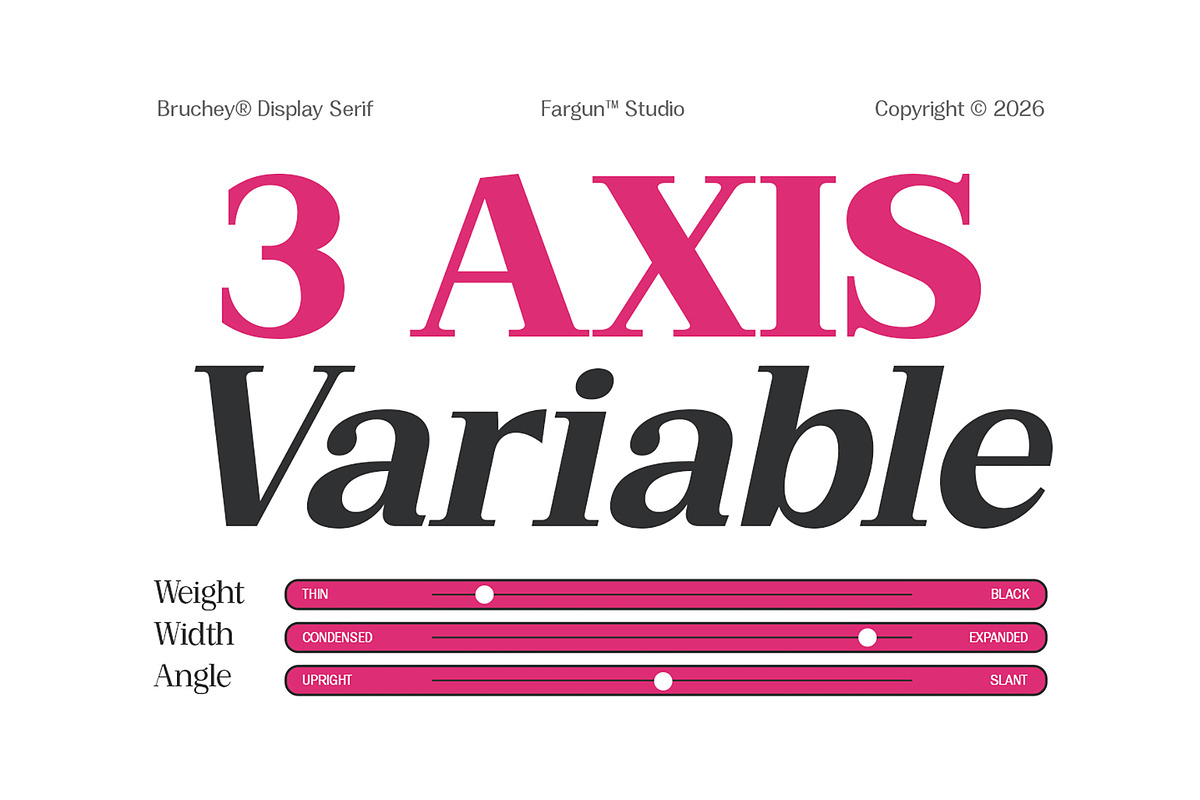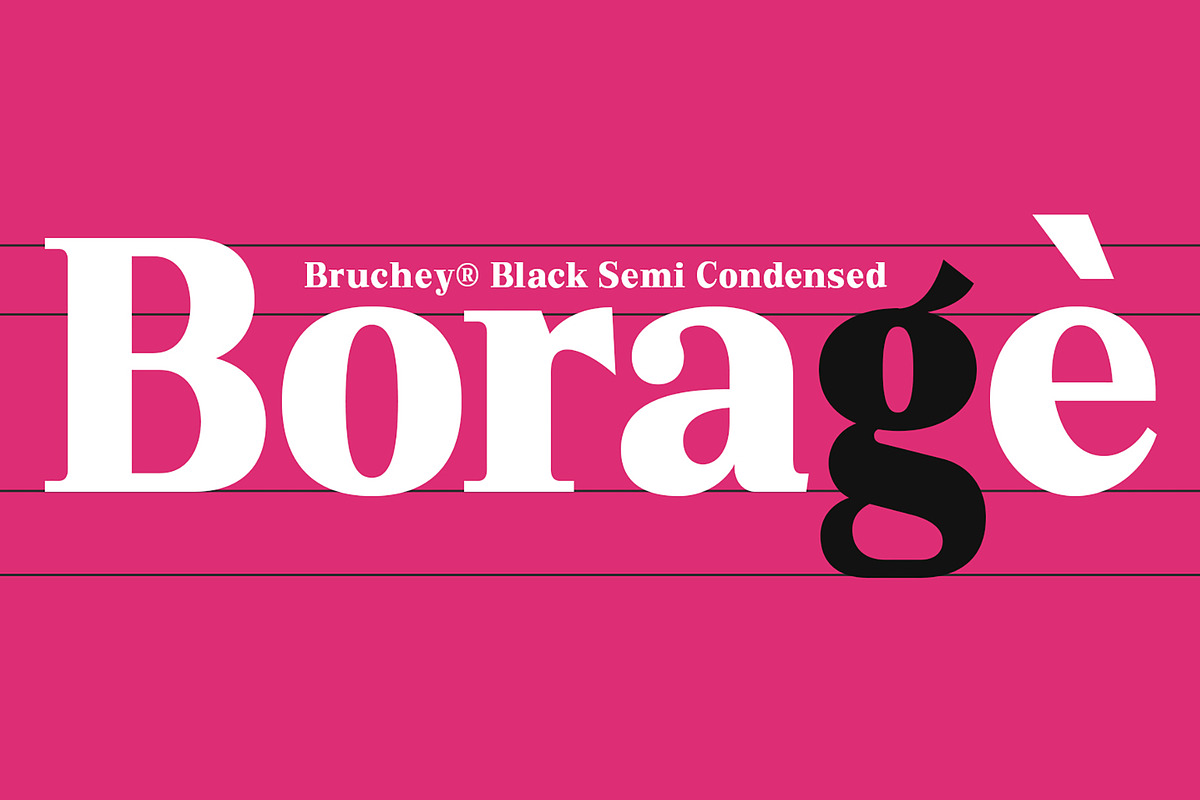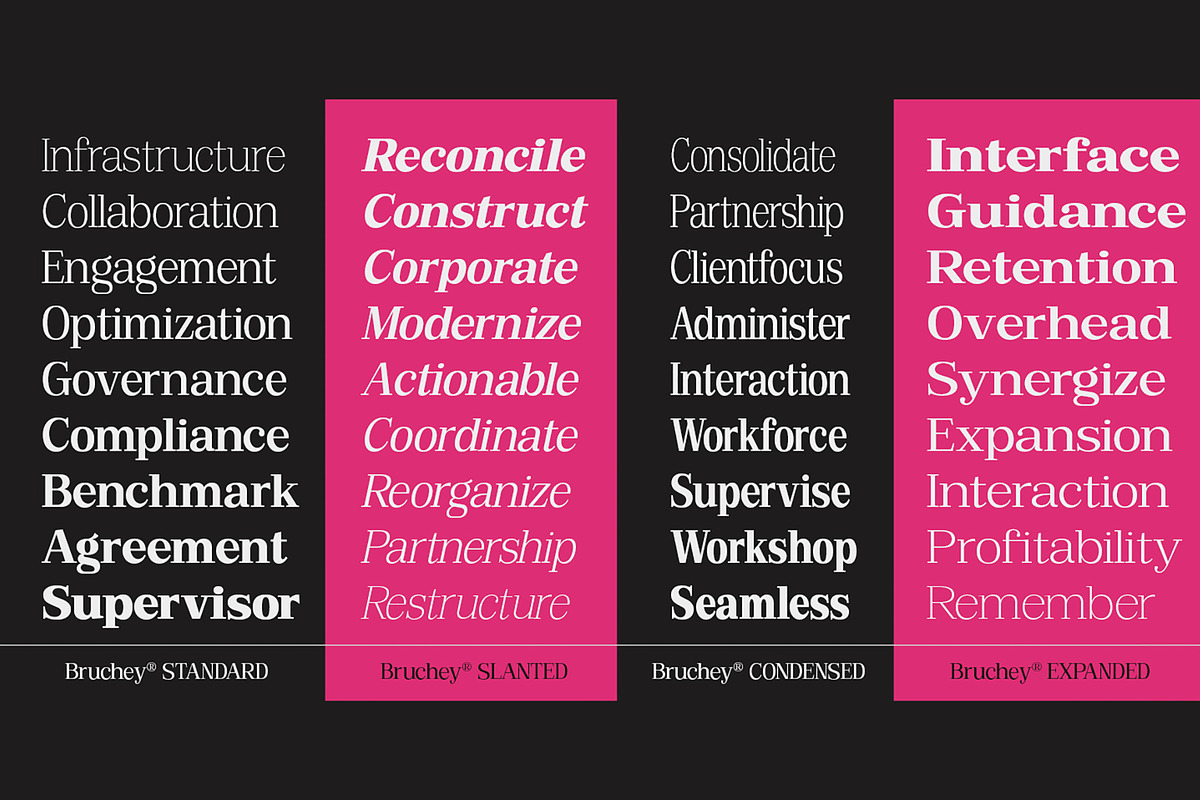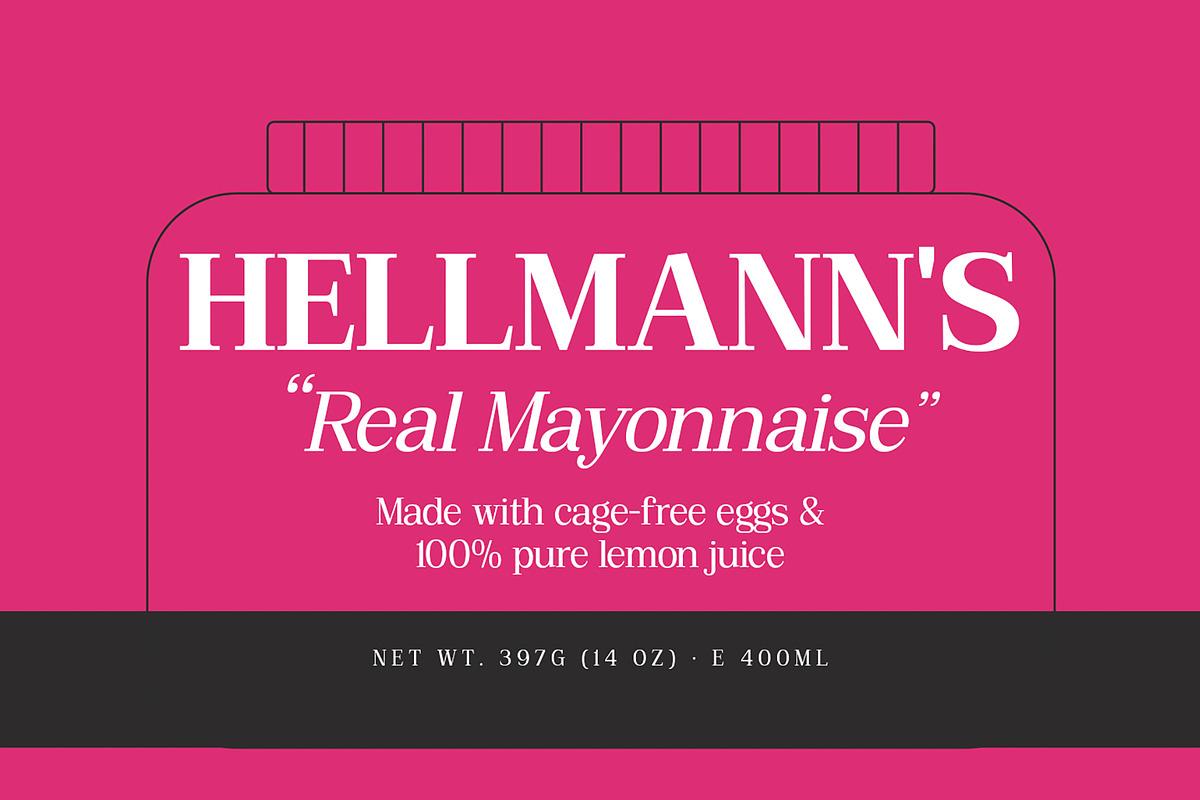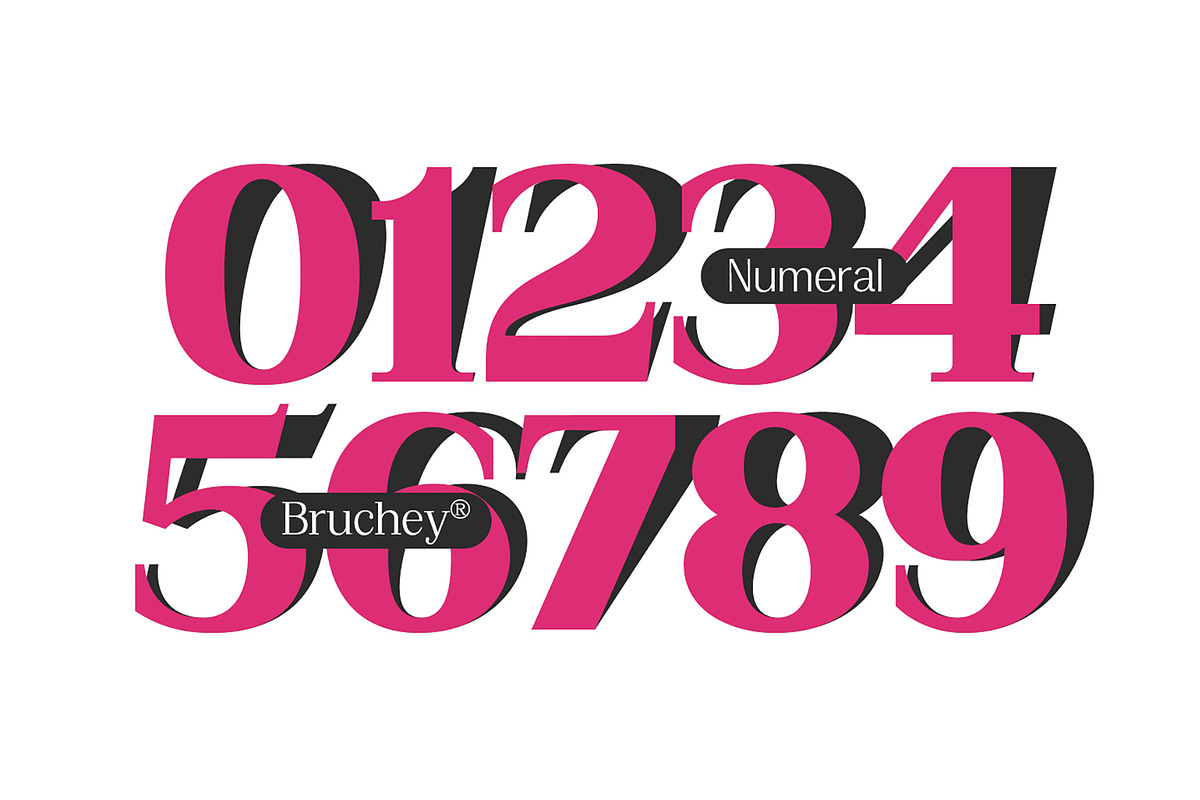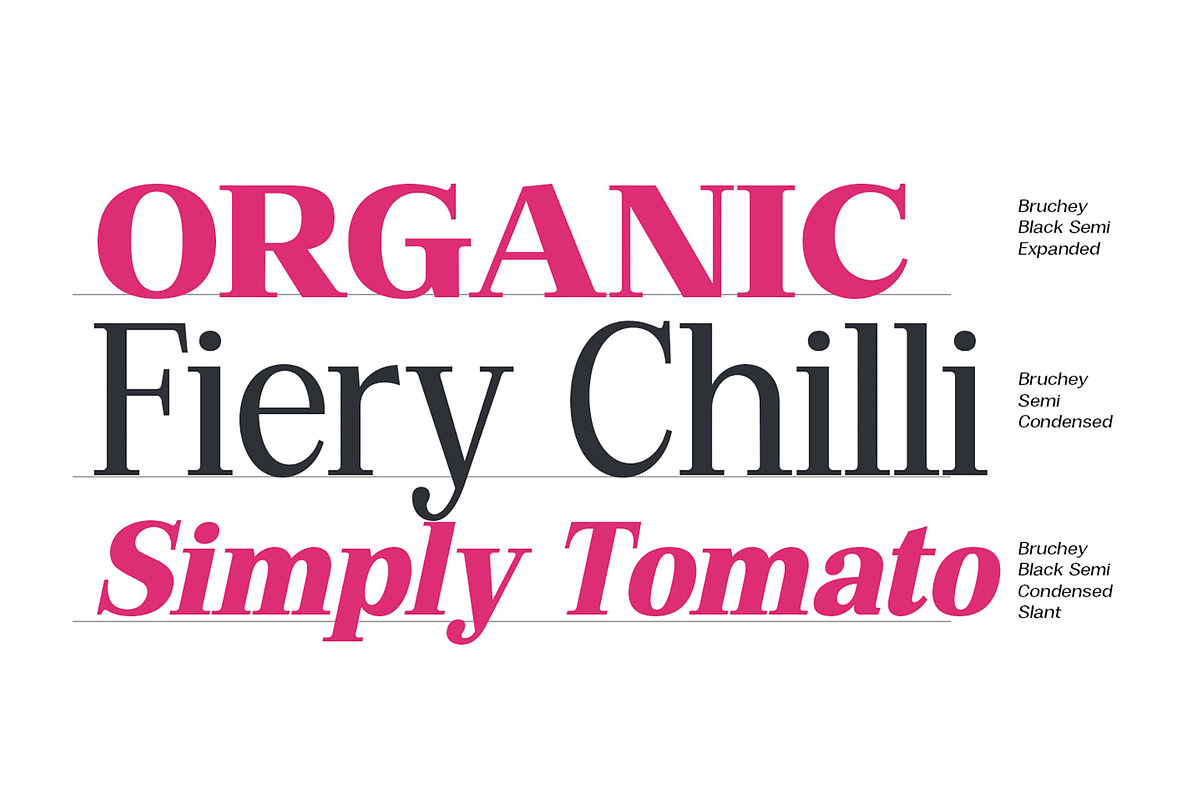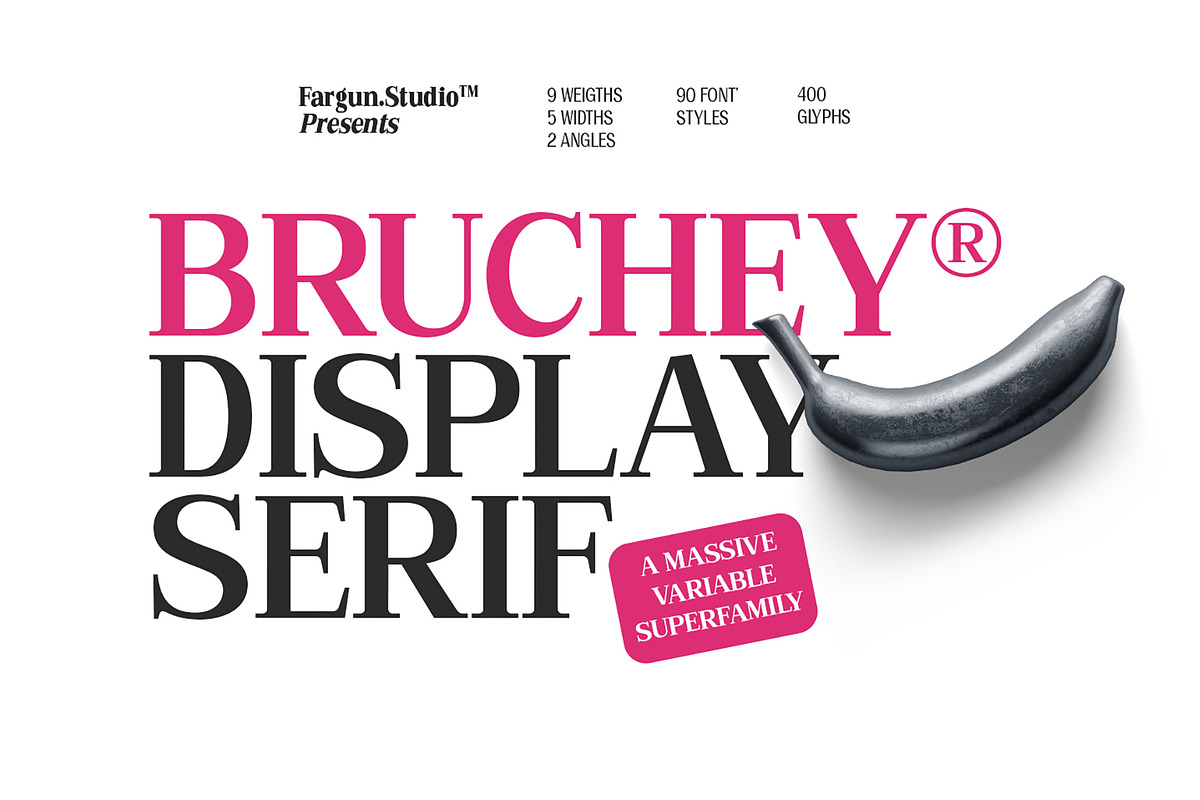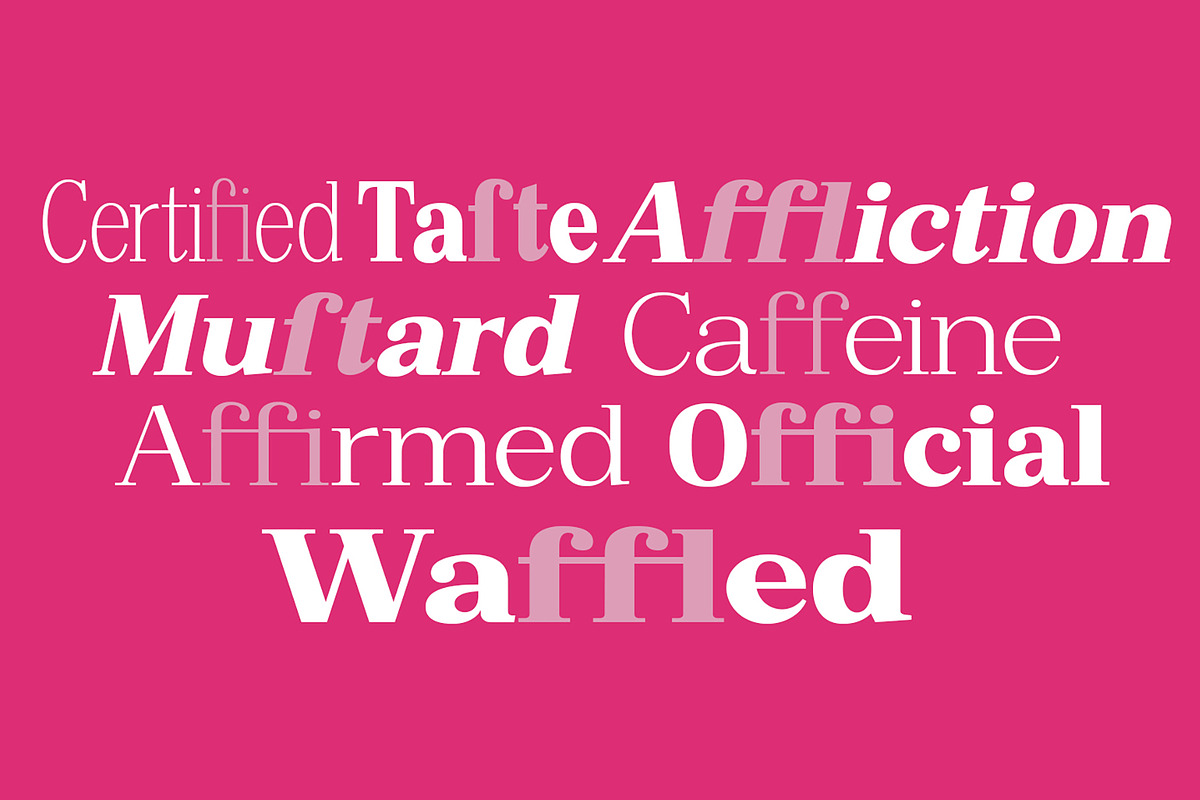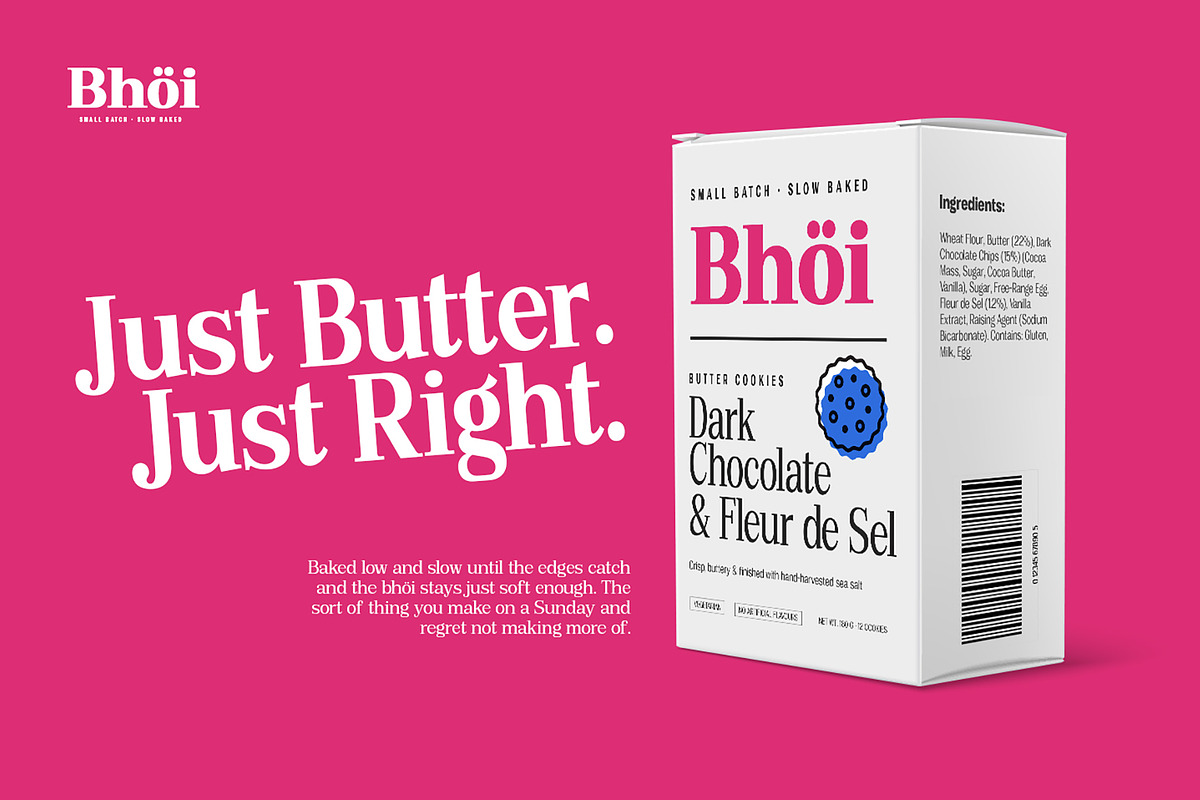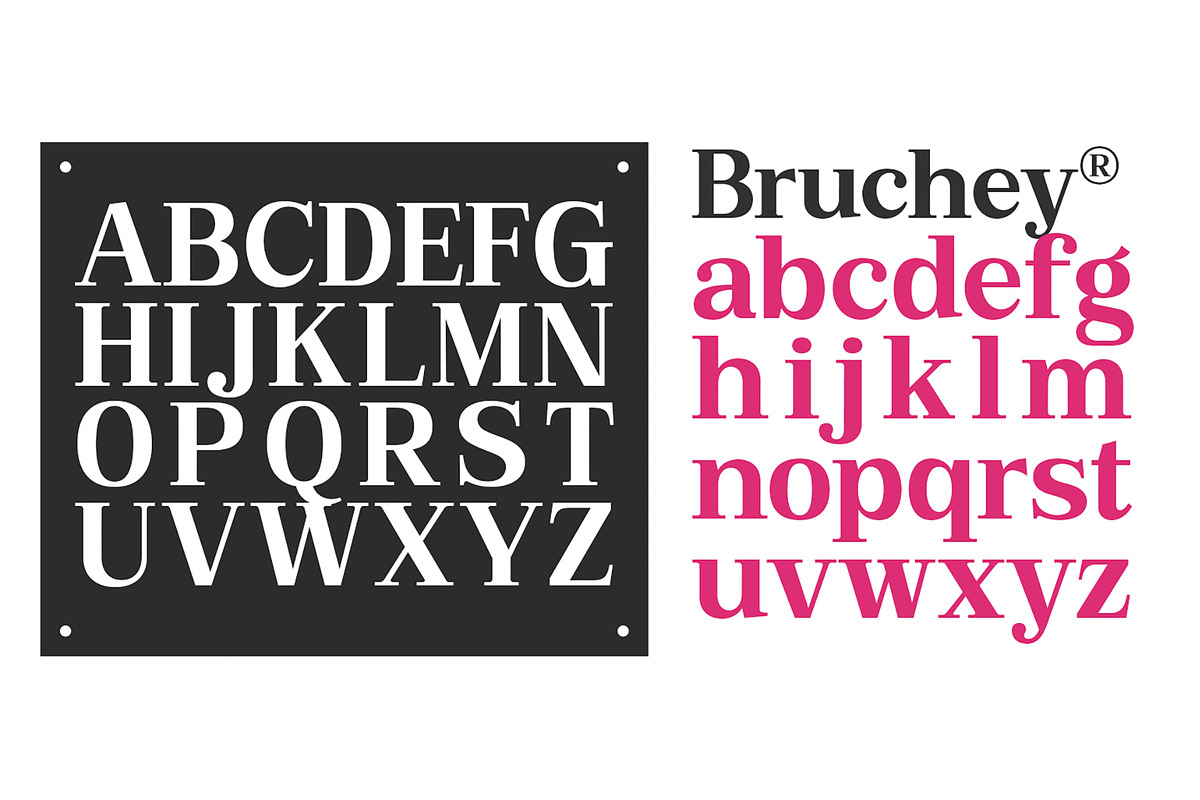
Bruchey Serif
Bruchey Serif is a refined variable serif that blends timeless elegance with a modern edge. Designed with graceful contrast and sculpted details, it delivers a luxurious, high-end feel while maintaining excellent readability. This variable superfamily includes 90 font files, featuring 7 weights, 9 widths, and 2 angles—giving you full flexibility to create everything from striking headlines to elegant body text with ease. Perfect for branding, editorial, fashion, luxury packaging, and premium design, Bruchey Serif adapts effortlessly across print and digital. Classic, versatile, and built for modern sophistication.